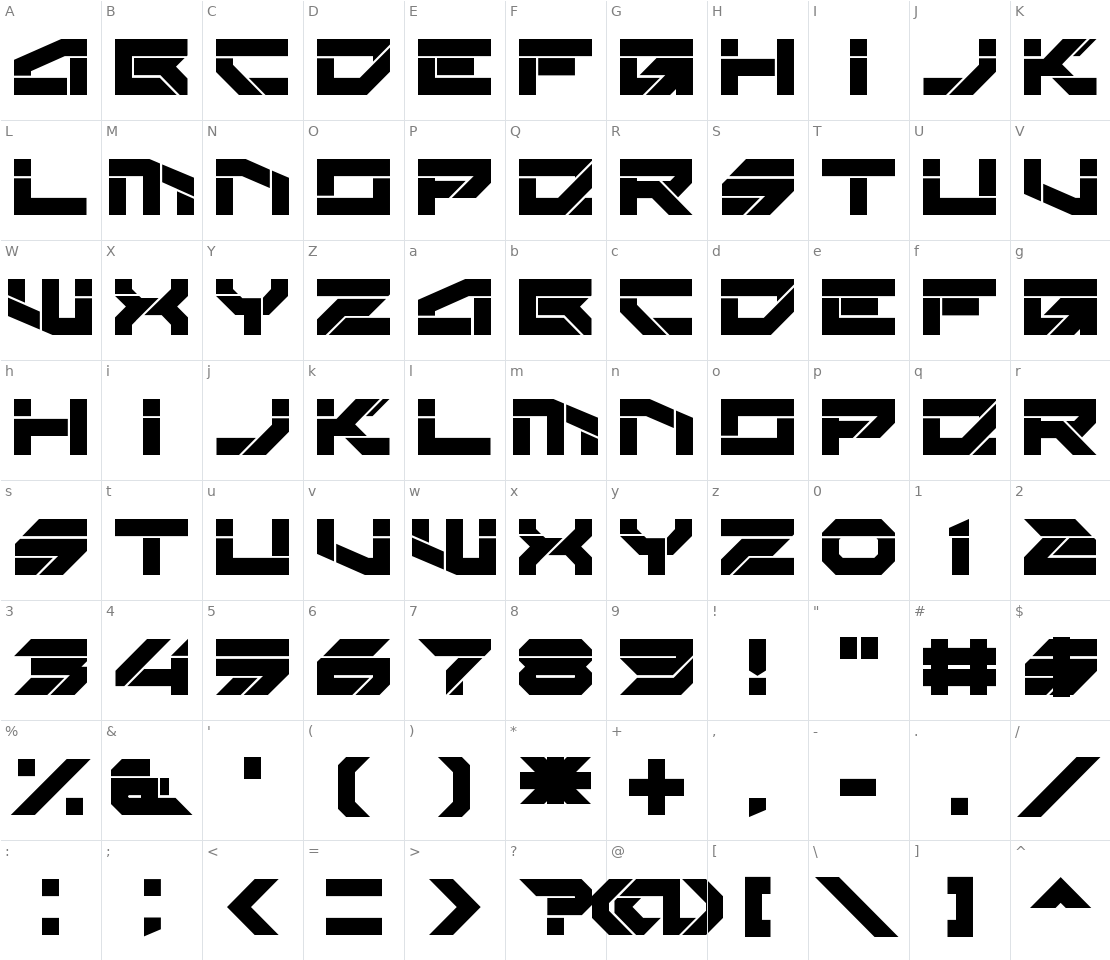
Rektec
Rektec is a blocky, heavy display face from Axel Lymphos with rigid geometric letterforms and sharp angular cuts that give it a hard-edged, industrial feel. Everything about it reads as mechanical and futuristic, with minimal curves and dense proportions built to dominate headlines, tech branding, and poster work at large sizes.